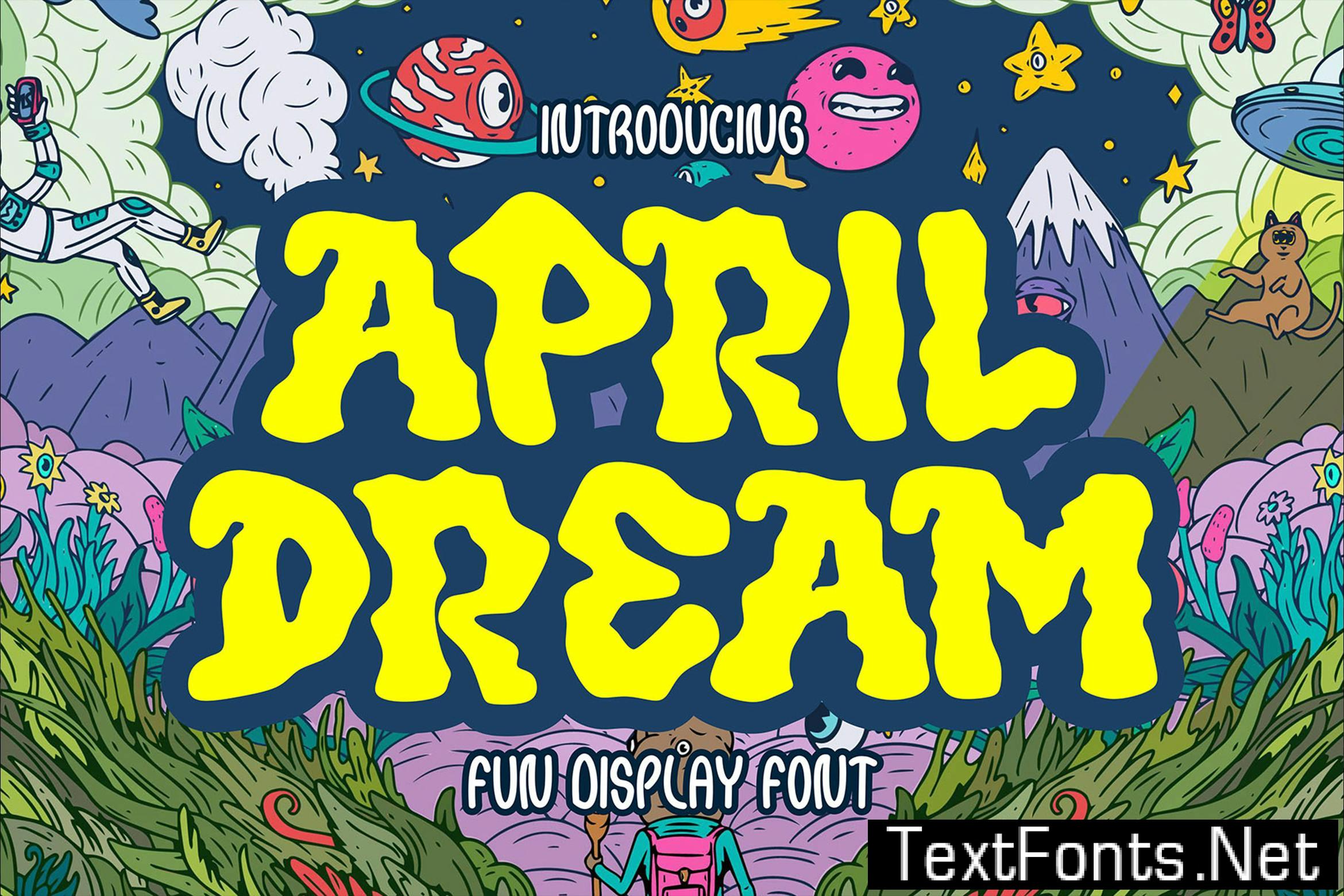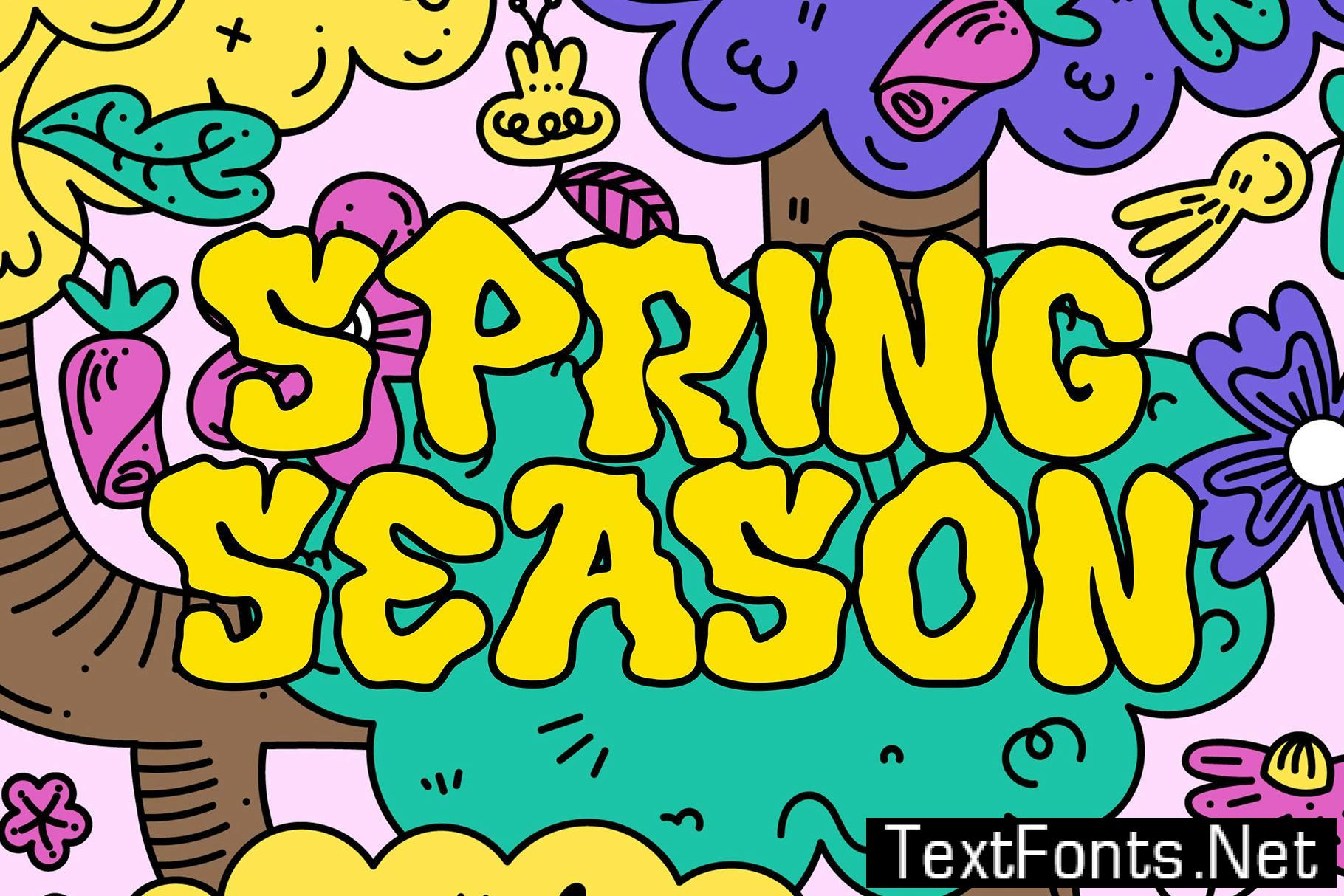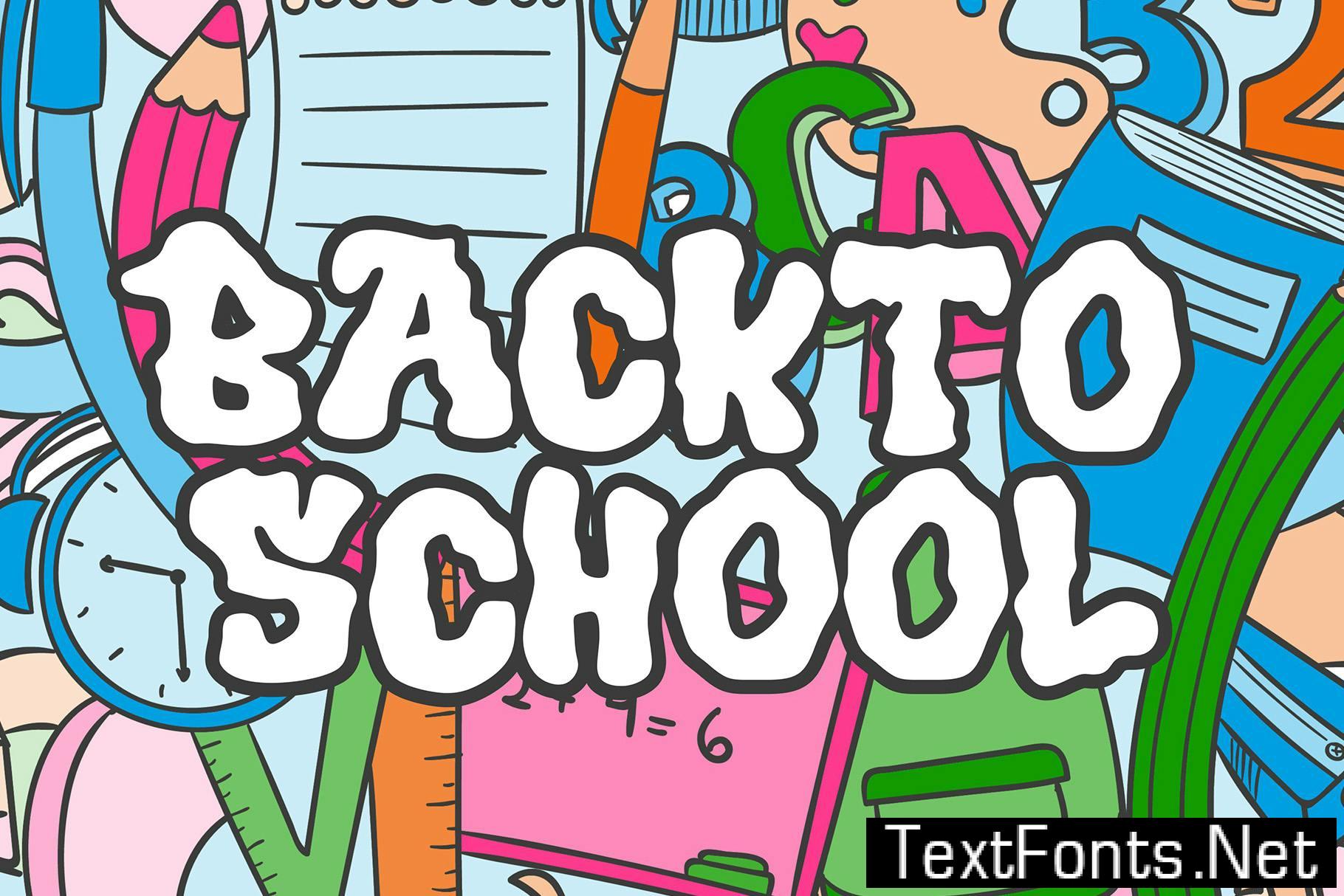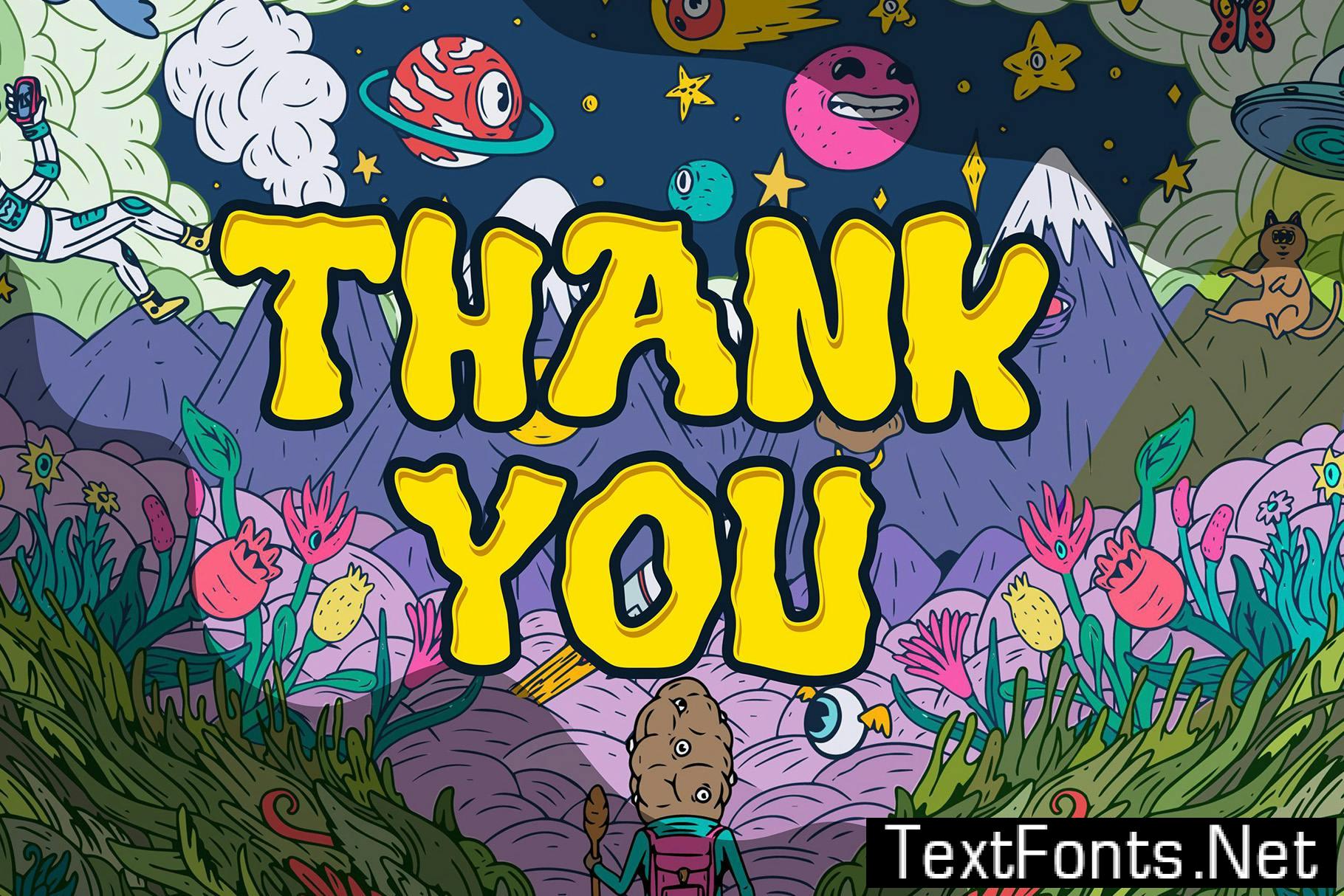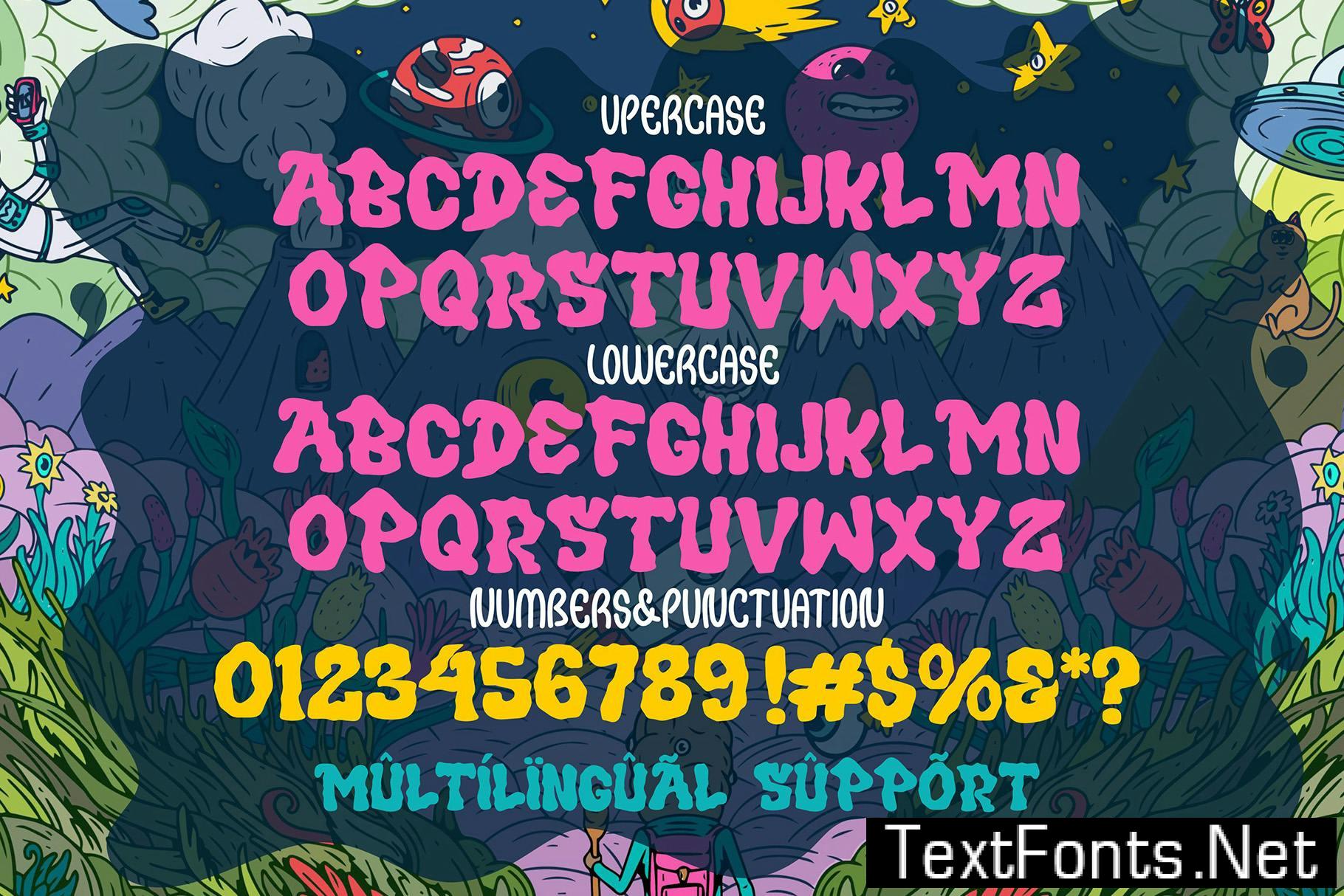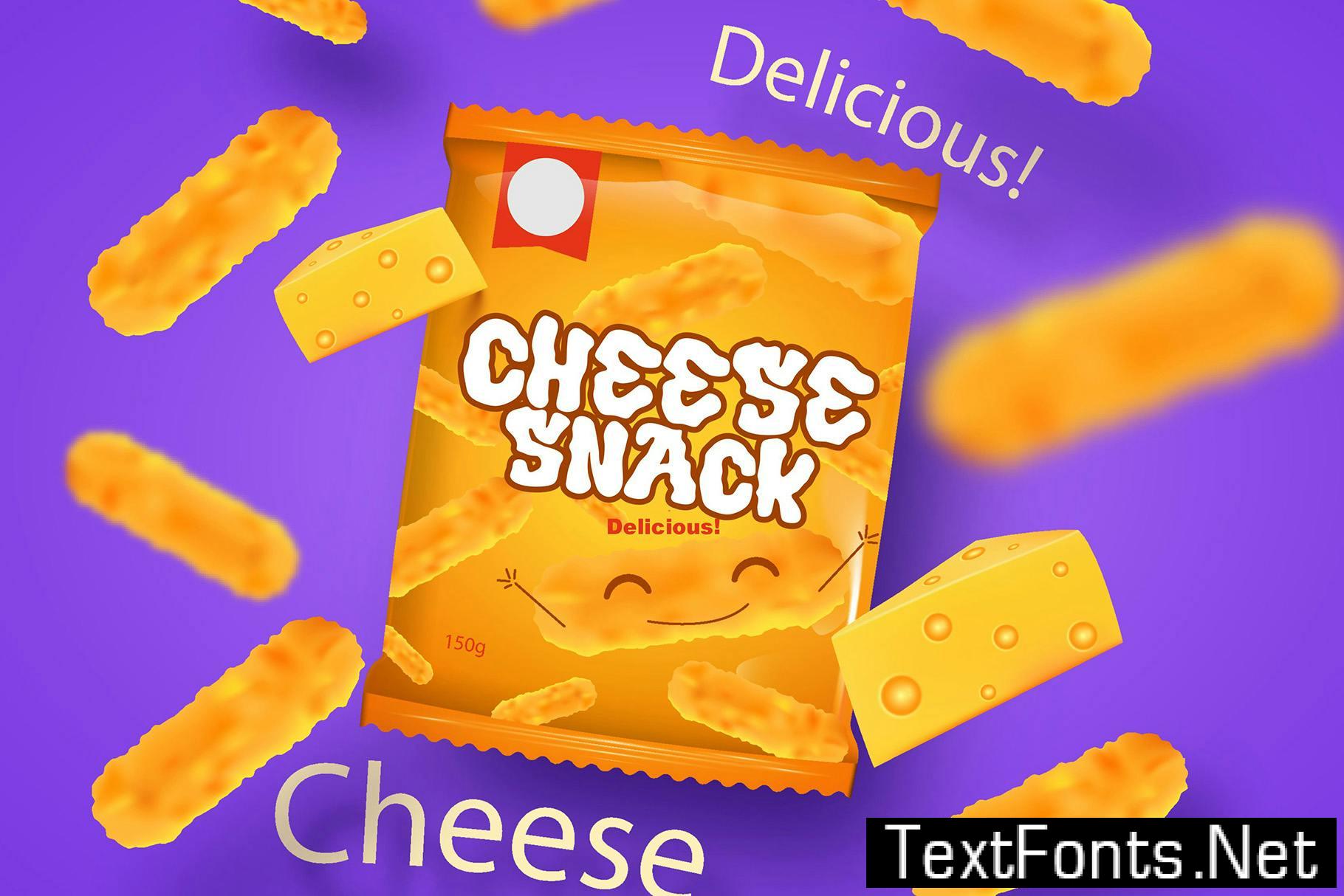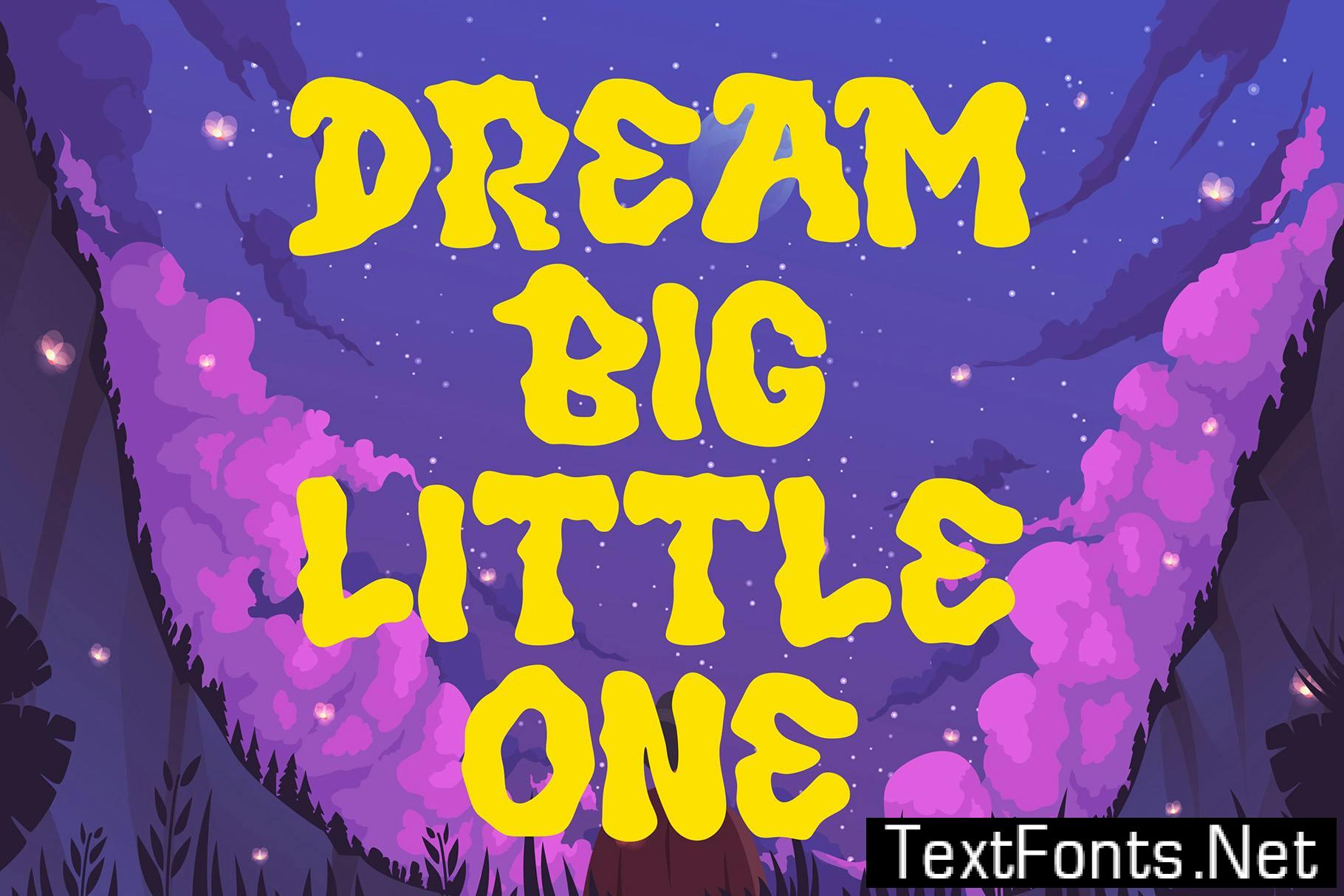
Experience the whimsical wonder of April Dream – the fun display font that sparks joy and ignites imagination in every design. Bursting with playful charm and delightful details, April Dream is more than just a font – it’s a magical tool for bringing your creative visions to life with a touch of lighthearted fun.
🌈 Whimsical Wonder: Transport yourself to a world of enchantment with April Dream’s charming and playful letterforms. Perfect for children’s books, invitations, greeting cards, and more, this font adds a sprinkle of magic and whimsy to every project.
🎈 Joyful Expression: Infuse your designs with happiness and positivity using April Dream. Whether you’re creating social media graphics, party decorations, or educational materials, this font radiates warmth and optimism, captivating audiences of all ages.
🌟 Versatile Creativity: From digital designs to print materials, April Dream offers endless possibilities for creative expression. Its cheerful and energetic style adapts seamlessly to a variety of projects, allowing you to unleash your imagination and craft designs that stand out from the crowd.
📚 Educational Adventures: Turn learning into an exciting journey with April Dream. Its fun and engaging letterforms make it perfect for educational materials, classroom decor, and children’s learning resources, inspiring young minds and fostering a love for learning.
💡 Endless Inspiration: Whether you’re designing party invitations, scrapbook layouts, or website headers, April Dream provides a burst of inspiration and creativity. Let its whimsical charm and vibrant personality breathe life into your projects and captivate your audience.
🌸 Enchanting Elegance: Inspired by the beauty of springtime, April Dream brings a sense of freshness and vitality to your designs. Its delicate curves and playful flourishes evoke the joy and renewal of the season, adding a touch of elegance to any project.
Unlock a world of creative possibilities with April Dream – where imagination knows no bounds, and every design is a delightful adventure. It’s time to dream big and let your creativity soar with this best-selling fun display font leading the way.